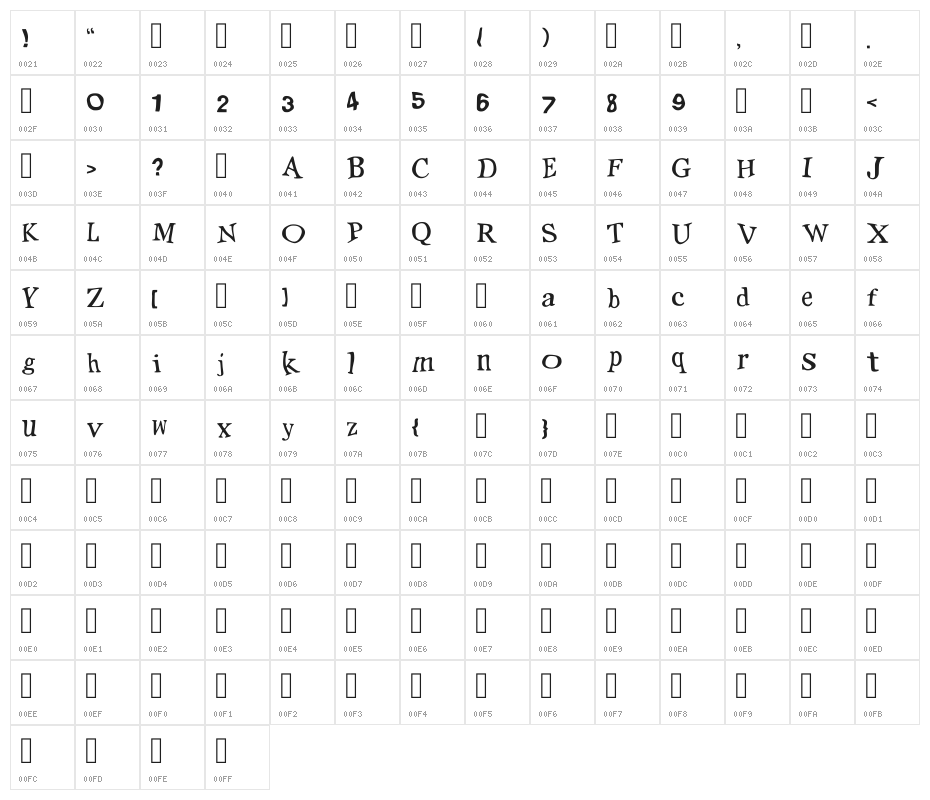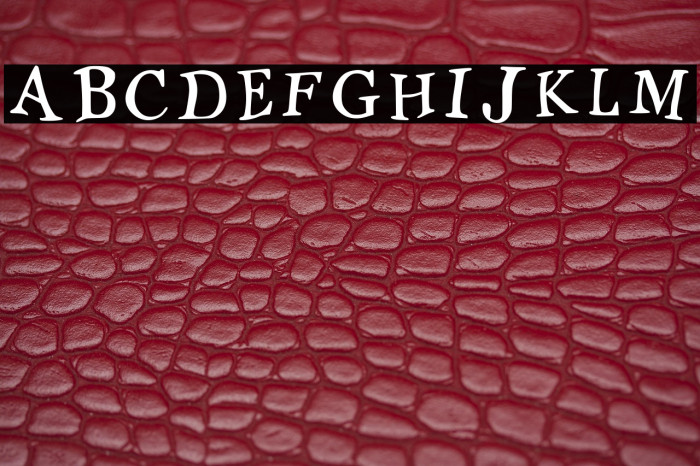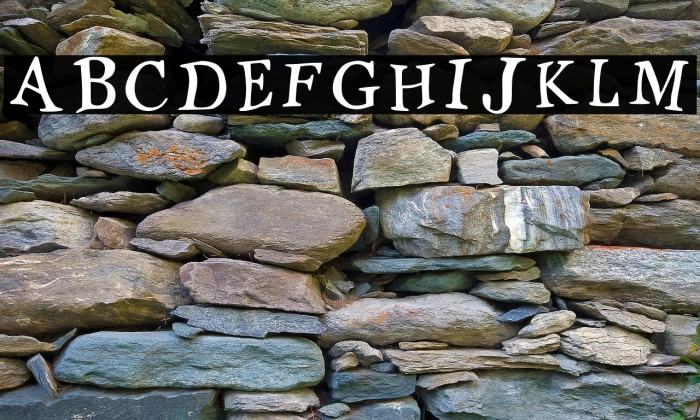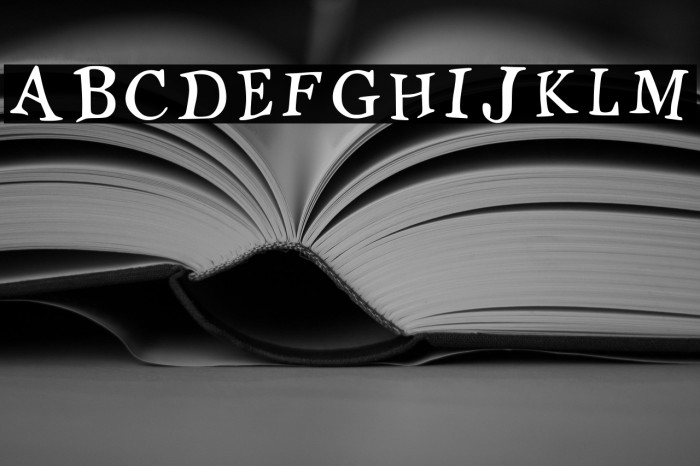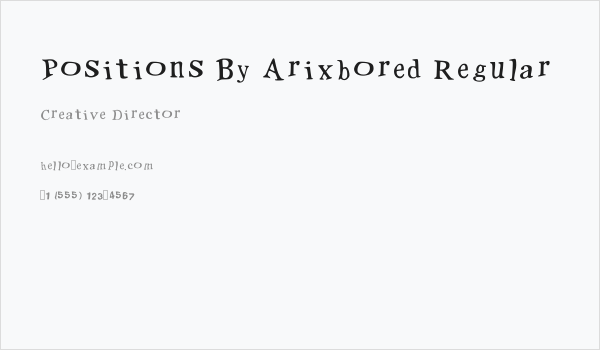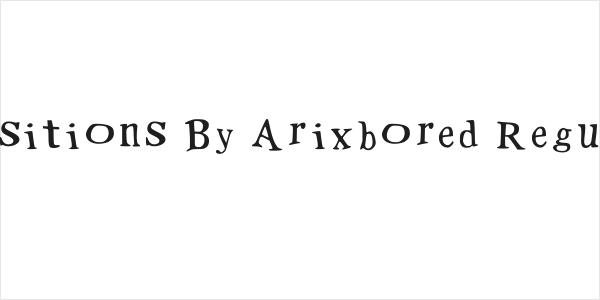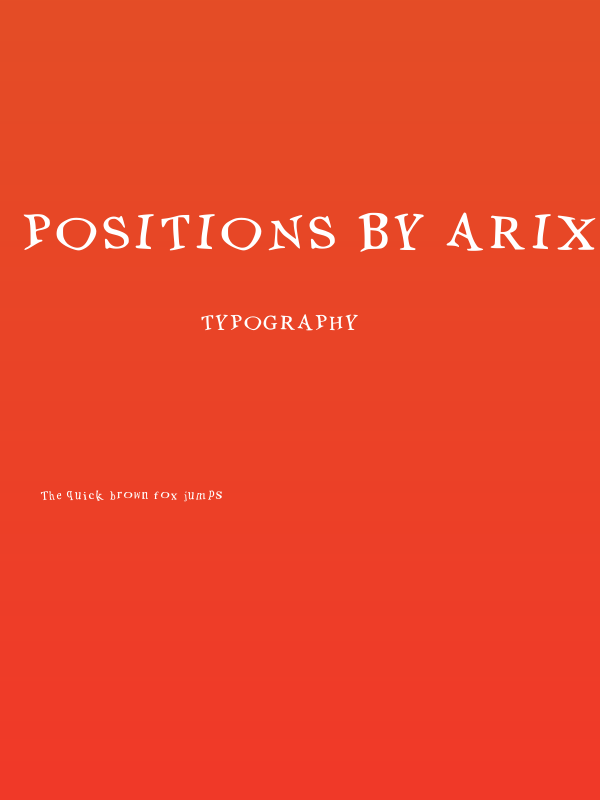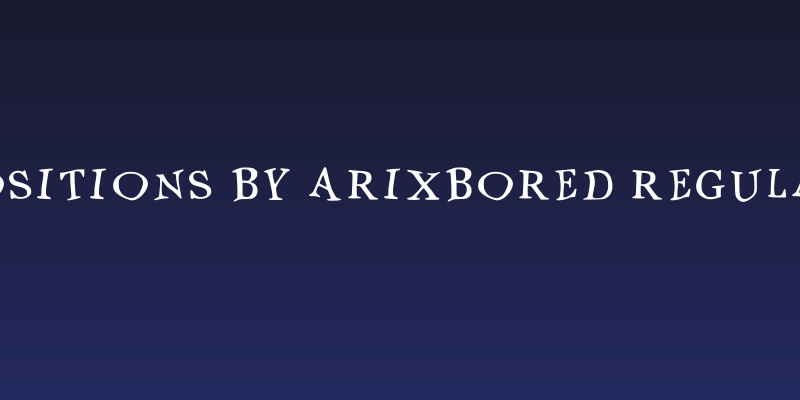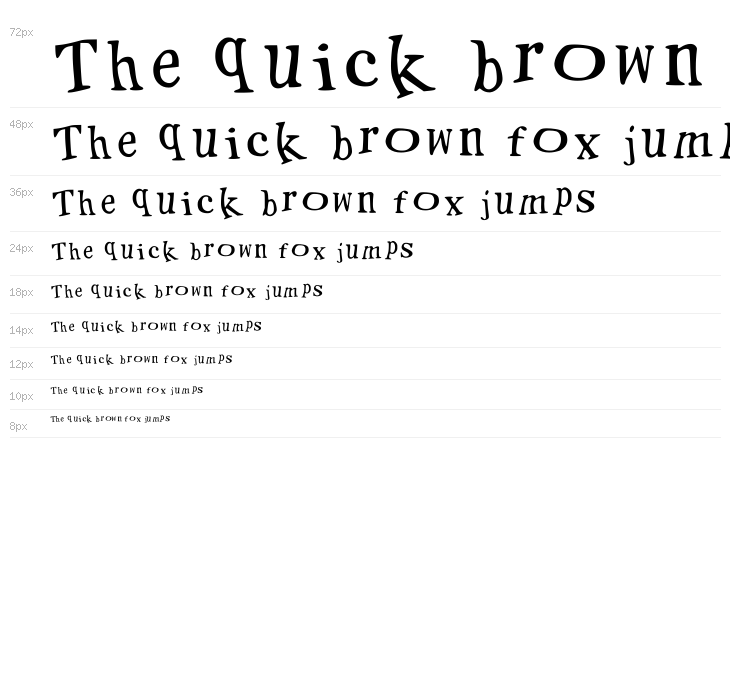
Positions By Arixbored Regular Font
Positions By Arixbored Regular Description
This font features a playful and slightly whimsical design, with characters that have a hand-drawn, uneven quality. The letters are bold and have a unique, irregular shape that gives them a dynamic and lively appearance. The uppercase letters are slightly wider than the lowercase, and the numbers maintain the same playful style. Special characters are included, adding versatility to the font. The overall look is informal and artistic, making it suitable for creative projects.
| Use Case | Logos, Posters, Creative projects |
| Proposed Projects | Ideal for children's books, creative posters, and artistic branding projects. |